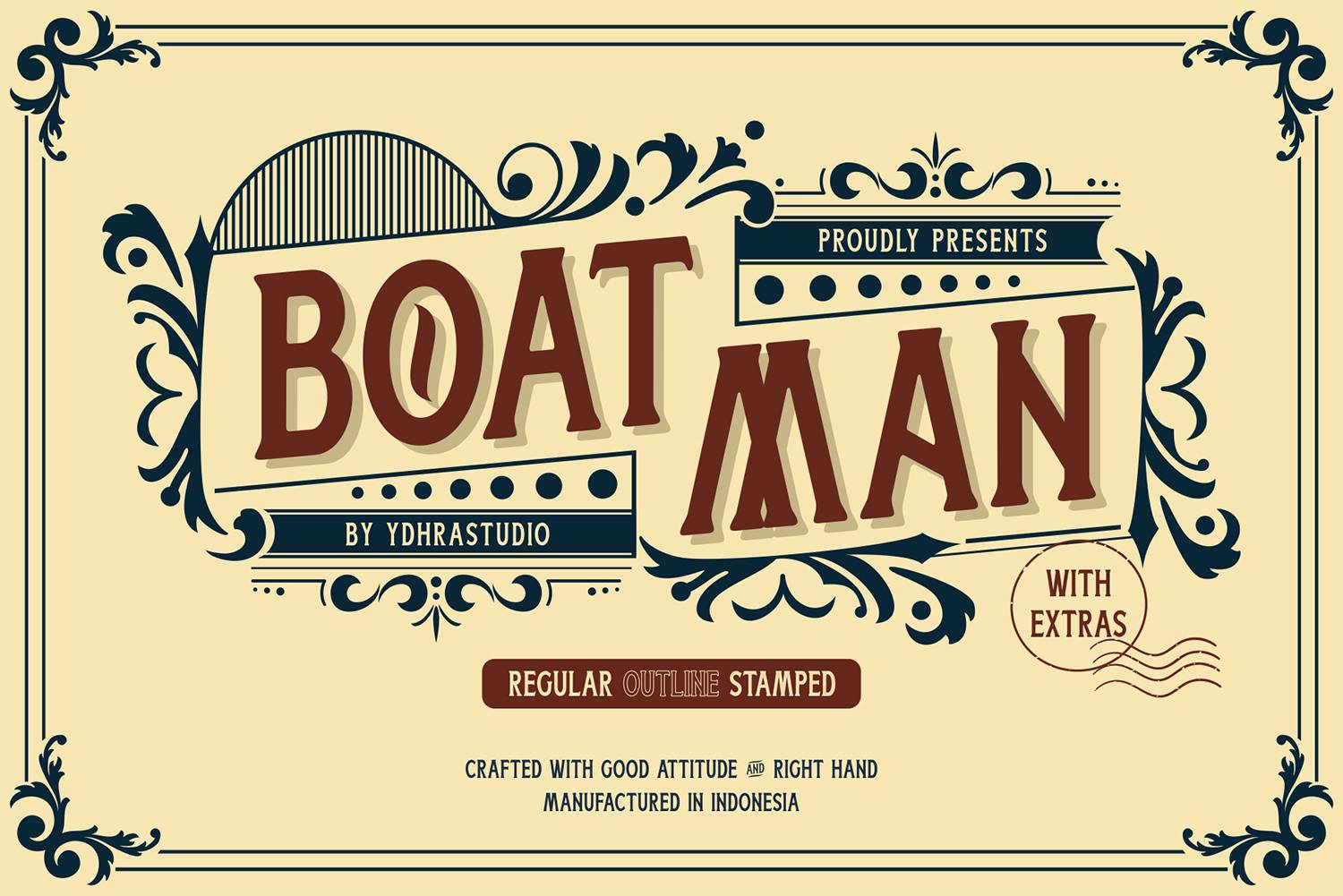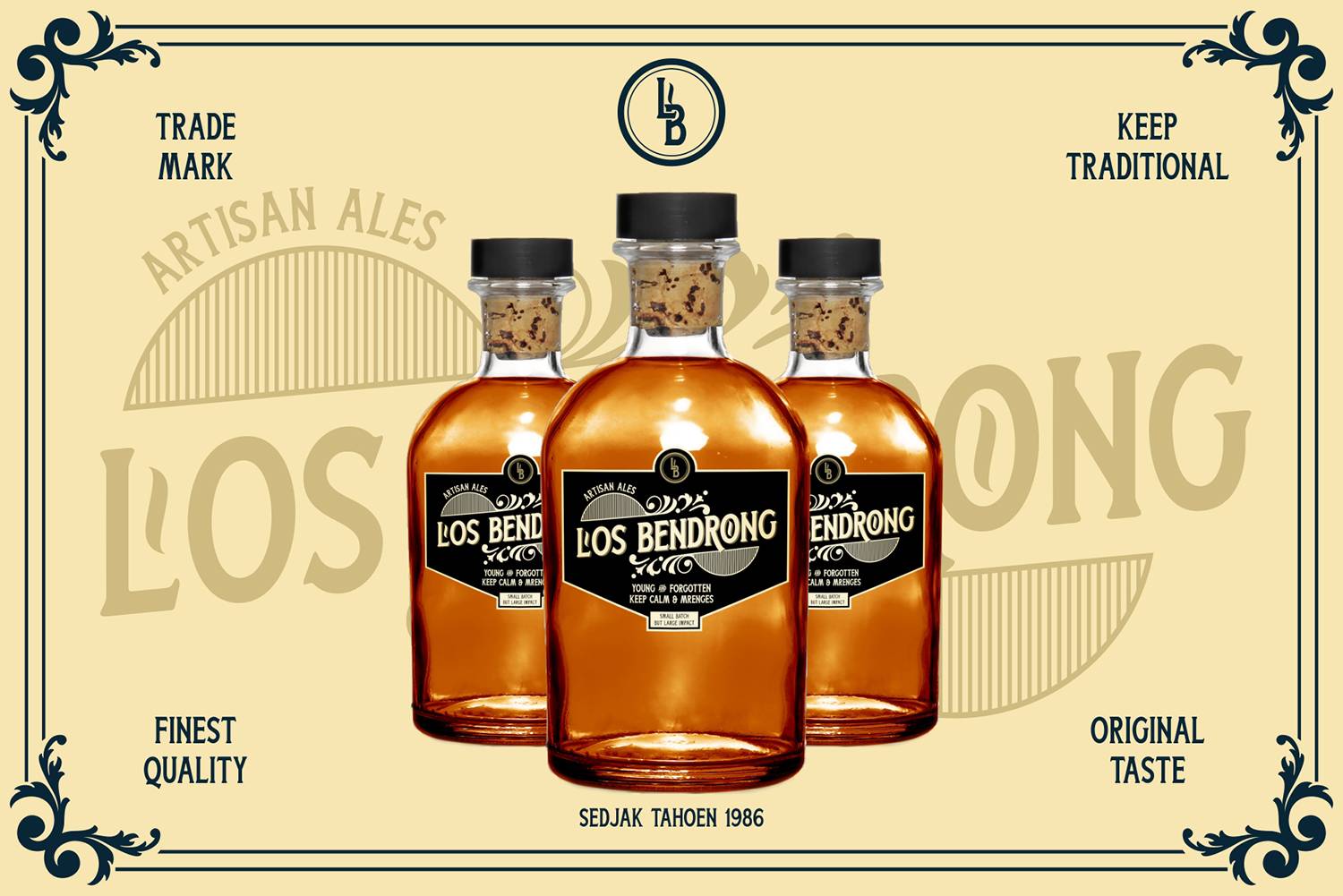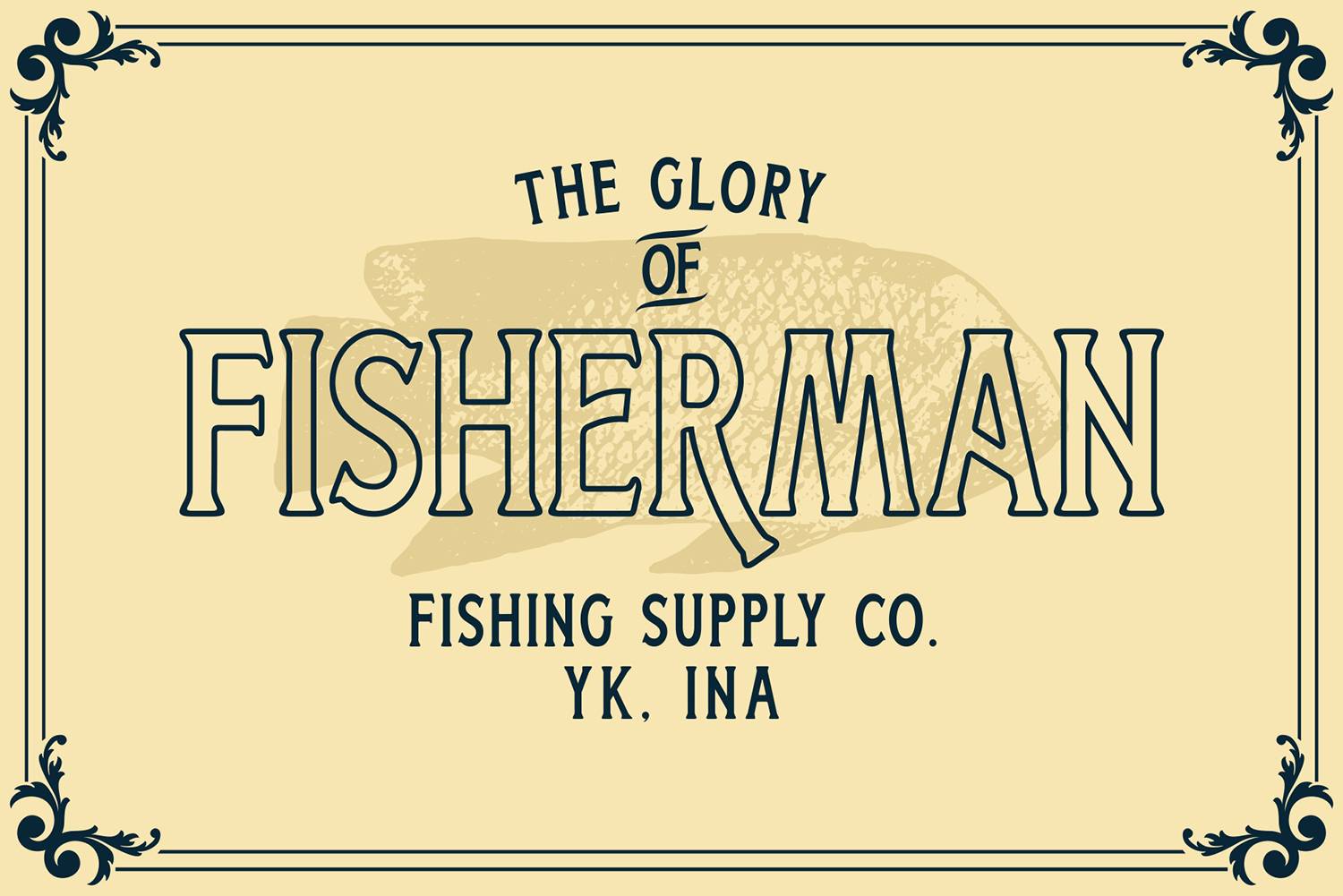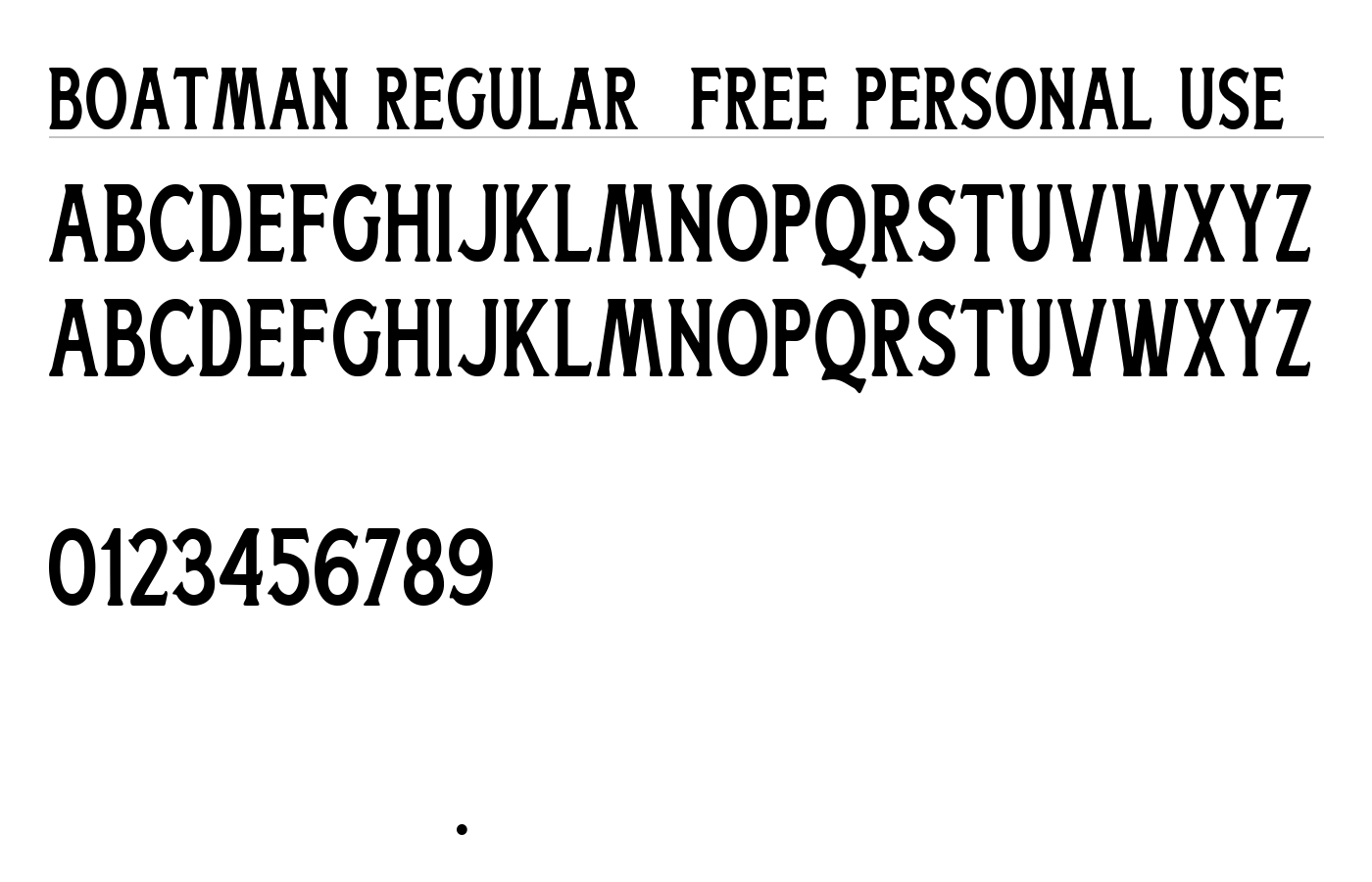
Boatman is a bold, condensed serif font with a vintage Western feel, featuring sharp, bracketed serifs and subtle stroke contrast that add character and impact. Its strong, upright letterforms and unique details, like the angled Q tail and tapered R leg, make it ideal for headlines, logos, and branding projects that seek a rugged, nostalgic, yet authoritative vibe. This font works well in designs where a confident and distinct personality is needed, such as posters, packaging, and editorial titles.
Boatman Font
About Boatman Font
| Font family | Boatman Font |
| Designer | Yudha Rahmat Ageng |